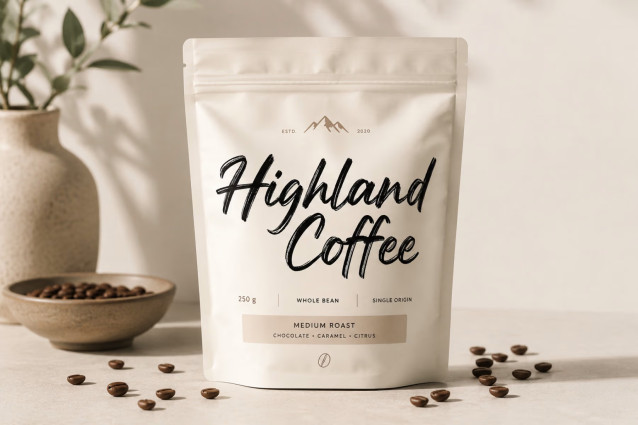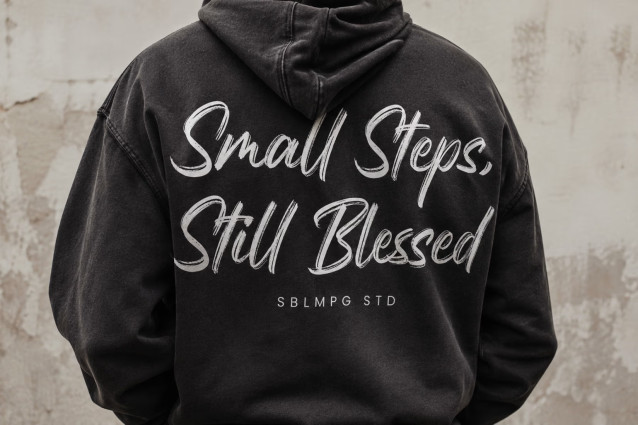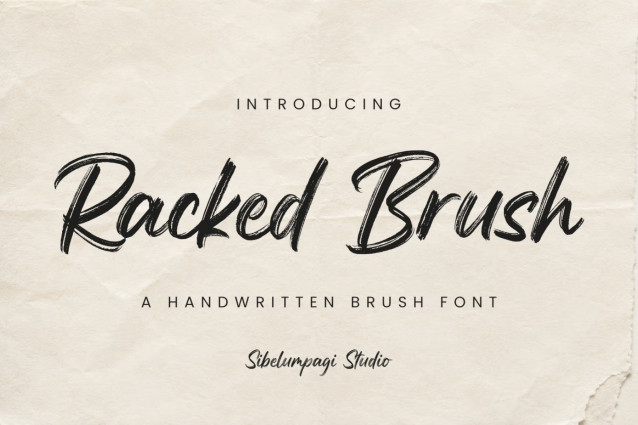
Racked Brush – Handwritten Font
Racked Brush is a bold handwritten brush font with a raw, expressive, and energetic feel. Perfect for logos, posters, packaging, merchandise, social media graphics, and standout branding projects